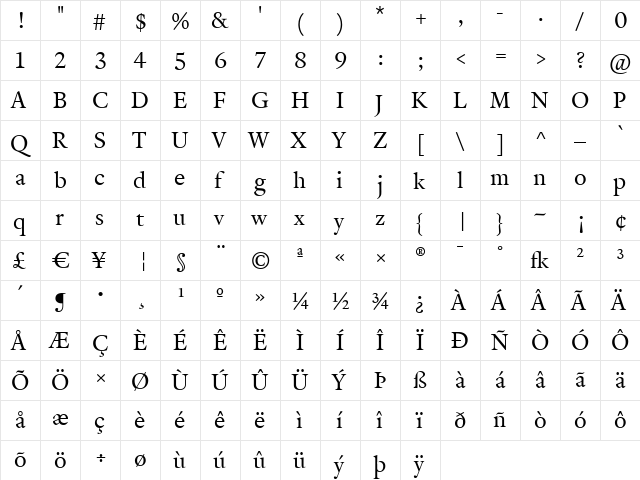
RongelLining Regular
| Foundry | Mario Feliciano |
Design Context for RongelLining Typeface
RongelLining takes a measured approach to typography — its balanced proportions and neutral character make it a reliable workhorse for both digital and print work.